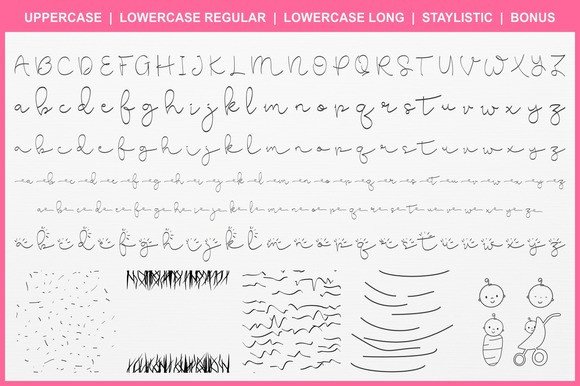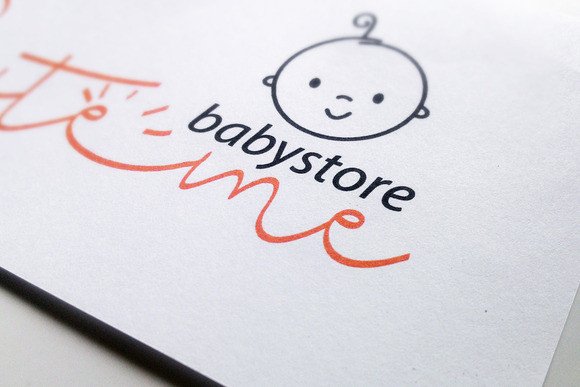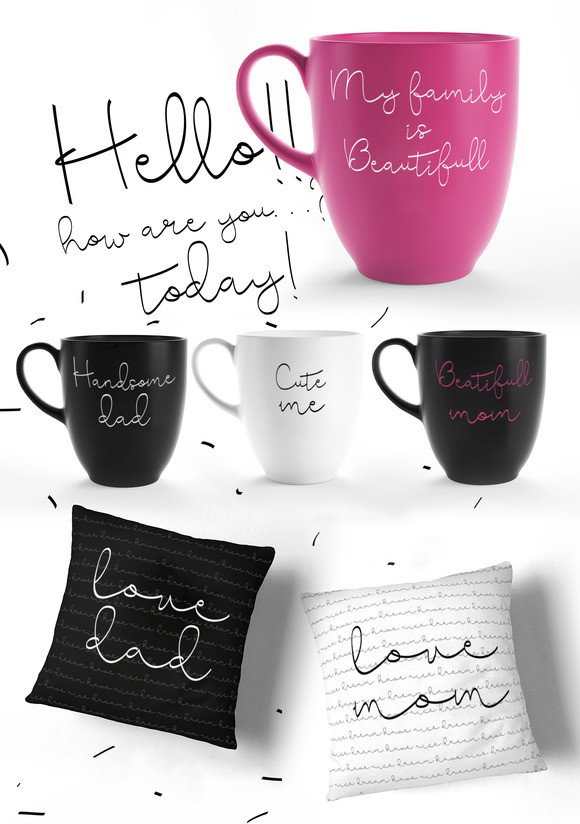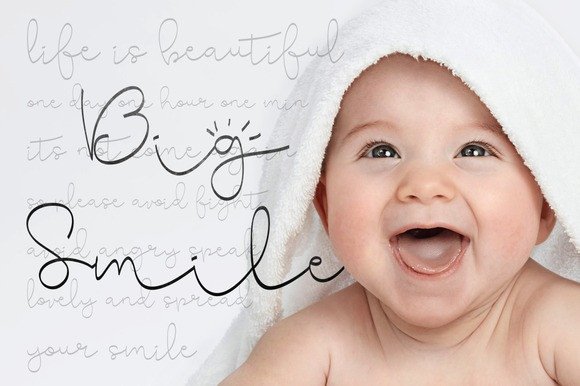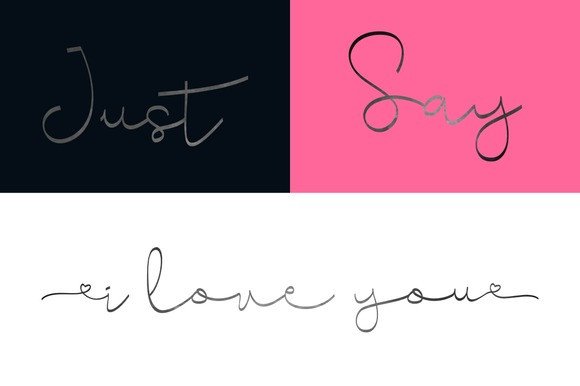
The Sweet Touch of Cute Baby Font
As a designer, there’s nothing quite like the feeling of discovering a new font that perfectly captures the essence of a project. For me, it was the moment I stumbled upon Cute Baby Font – a modern, elegant handwritten script font that immediately made me think of delicate newborn baby cards and lovingly handwritten notes.
Cute Baby Font is more than just a pretty face; it’s a versatile tool designed to bring a touch of whimsy and romance to your designs. Whether you’re creating a wedding invitation, a baby announcement, or a custom T-shirt, this font is sure to add a sweet and personal touch. Its elegant, handwritten style makes it perfect for any project where you want to convey a sense of love, care, and attention to detail.
For designers, Cute Baby Font is a valuable addition to any font library. Its unique blend of modern and classic elements makes it a great choice for a wide range of projects, from baby-themed designs to wedding stationery and beyond.
Cute Baby Font Key Features
- Unique Characteristics: Cute Baby Font features rounded edges, soft curves, and playful details, making it perfect for designs targeting a young audience or conveying a sense of cuteness and innocence.
- Font Weight and Style: Cute Baby Font comes in two weights: Regular and Bold, allowing designers to add depth and emphasis to their text. The font also includes an italic style for added flair.
Cute Baby Font Review
Overall, I think Cute Baby Font is a fun and playful option for designers looking to add a touch of whimsy to their projects. ✨ It’s perfect for creating a child-friendly atmosphere or for adding a lighthearted feel to a design.
Here are some of the things that work well with Cute Baby Font:
- ✨ It’s highly legible, even at small font sizes, making it great for body text or titles.
- ✨ The font comes in a variety of weights and styles, giving designers plenty of options for customization.
- ✨ It’s easy to pair with other fonts, making it a great choice for multi-font designs.
- ⚠️ The font may not be suitable for formal or professional projects, as it can come across as too playful or childish.
- ⚠️ Some designers may find the font’s simplicity and lack of boldness to be limiting in certain design contexts.
Overall, I think Cute Baby Font is a fun and useful option for designers, but it may not be the best choice for every project. With its playful feel and customization options, it’s perfect for creating a lighthearted or child-friendly atmosphere, but it may not be suitable for more formal or professional designs.
Tips for Getting the Most Out of Cute Baby Font
For the best results, use Cute Baby Font in combination with playful colors and graphics, such as baby-themed illustrations or pastel colors.
Experiment with different font sizes and styles to create a visually appealing design.
Use Cute Baby Font for baby-related designs, such as baby announcements, nursery decor, or children’s party invitations.